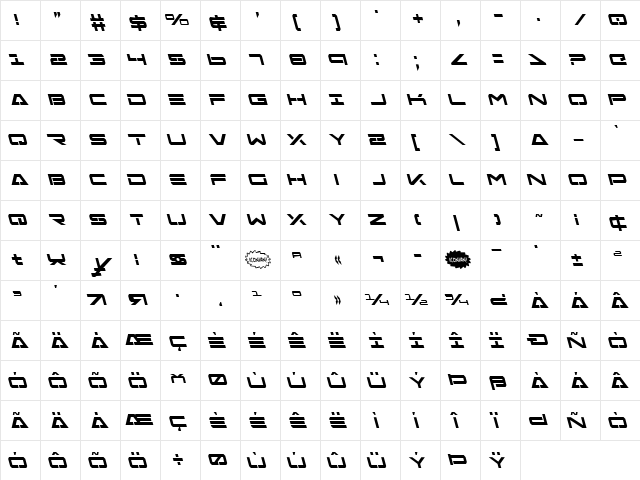
Free Agent Bold Leftalic Font Preview
Design Context for Free Agent Bold Leftalic Typeface
Free Agent Bold Leftalic takes a measured approach to typography — its balanced proportions and neutral character make it a reliable workhorse for both digital and print work. Its italic angle brings a sense of urgency and motion to the letterforms. Its bold stroke weight gives it real presence on the page.
Pro Tip: Use Free Agent Bold Leftalic for emphasis, pull quotes, and subheadings where its slanted energy can add rhythm to the layout.